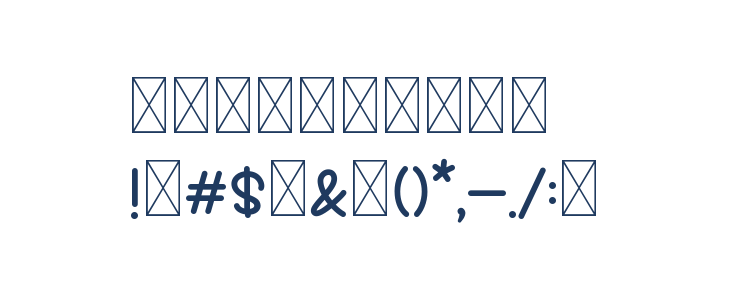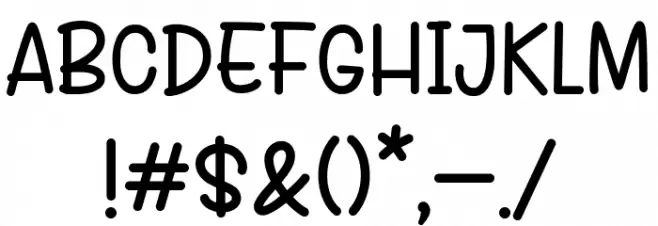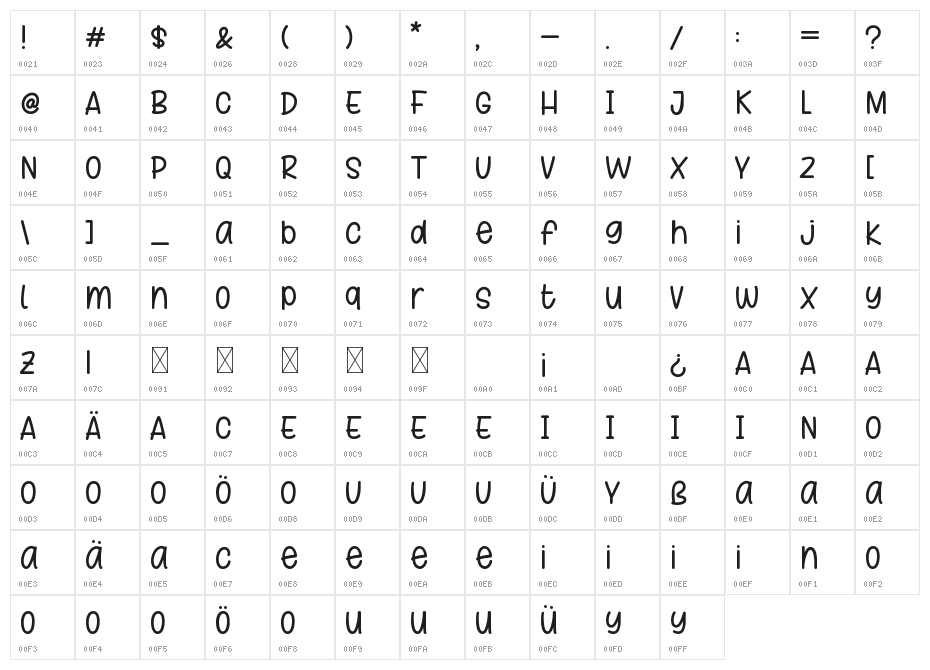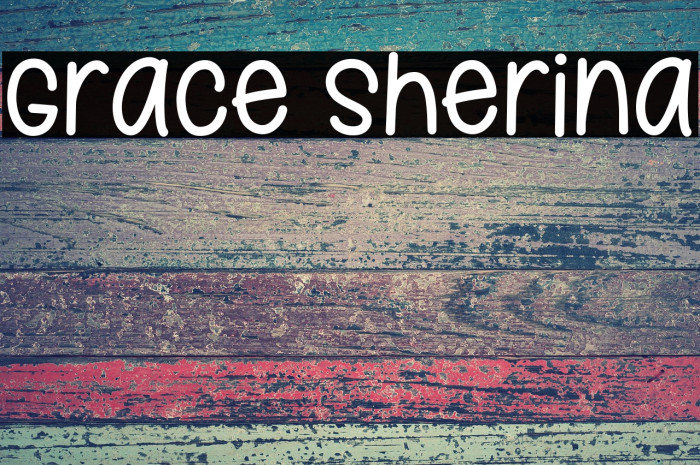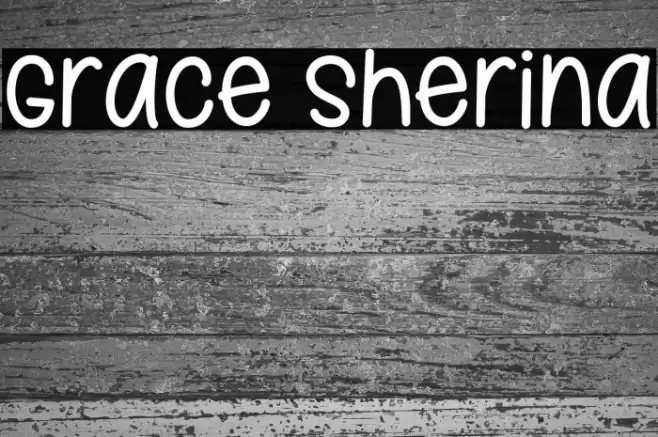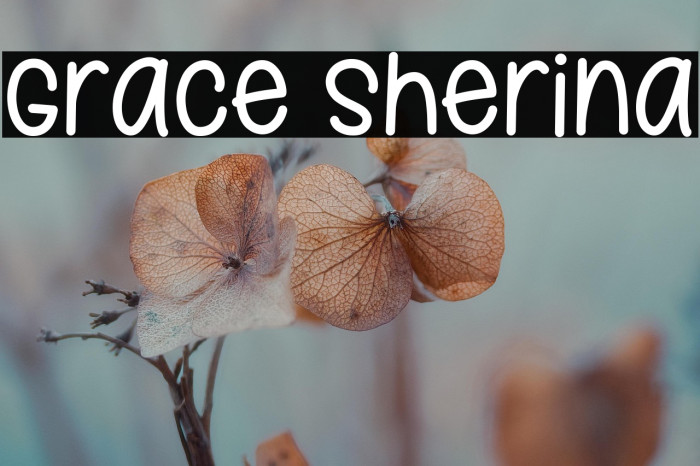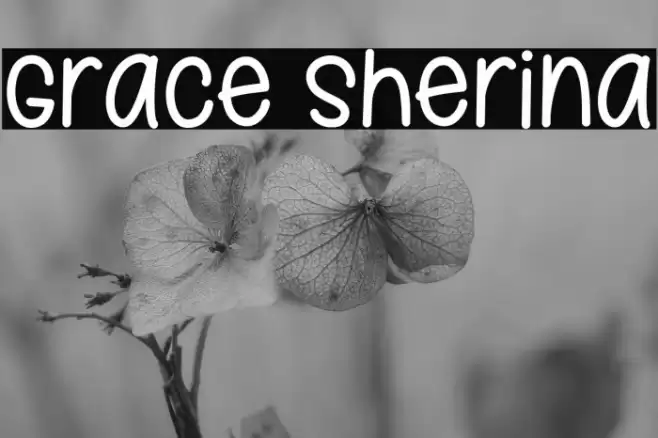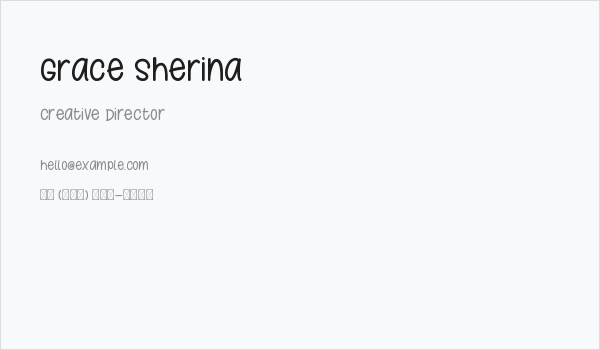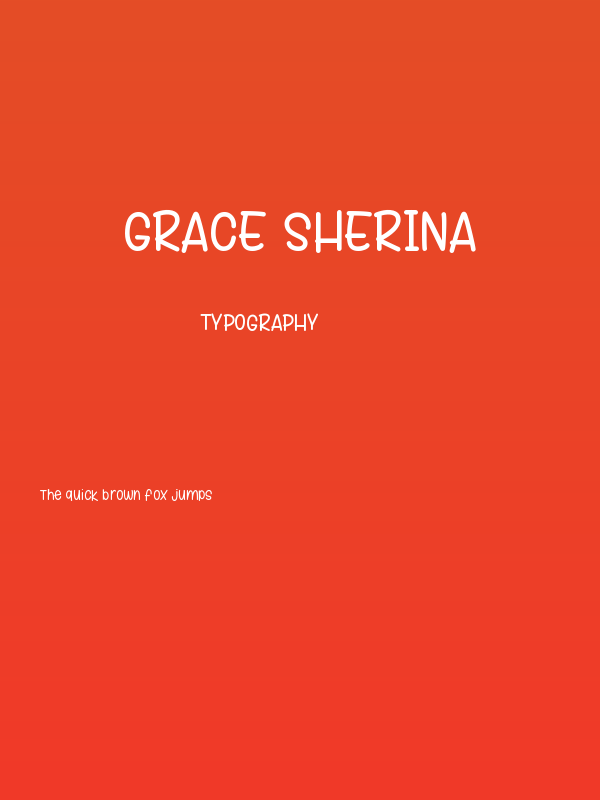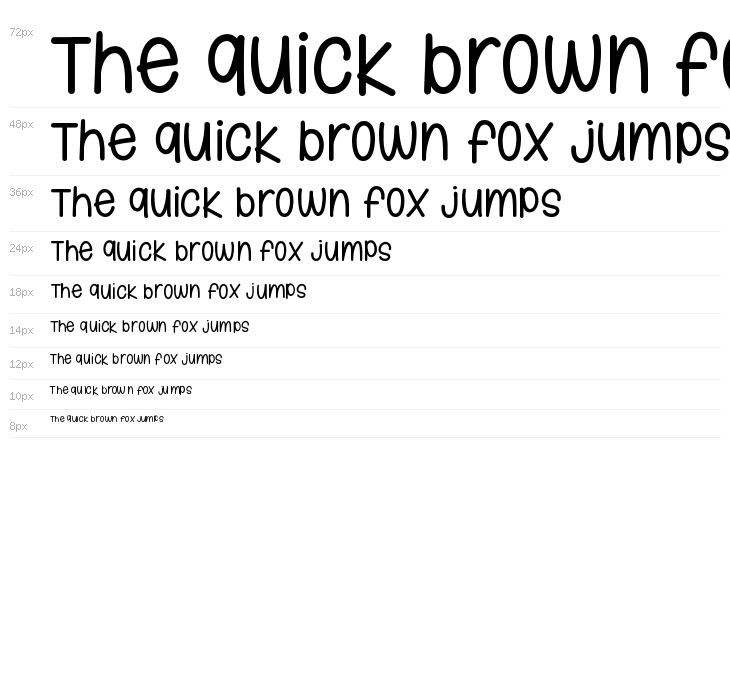
Grace Sherina Font
Grace Sherina Description
This font features a playful and rounded handwritten style, characterized by its smooth curves and friendly appearance. The letters are evenly spaced, with a consistent stroke width that gives it a harmonious and balanced look. The uppercase and lowercase letters maintain a uniform height, contributing to its legibility and charm. The font includes a full set of characters, including numbers and a variety of punctuation marks, making it versatile for different uses. Its whimsical nature makes it suitable for projects that require a personal and approachable touch.
| Use Case | Headlines, Logos, Social media graphics |
| Proposed Projects | Ideal for children's books, greeting cards, playful branding, and social media graphics. |